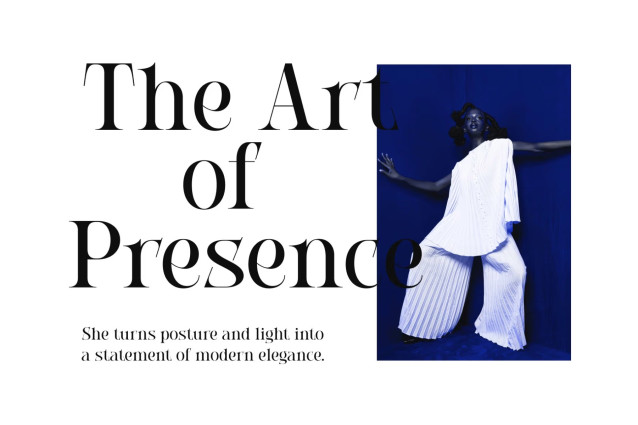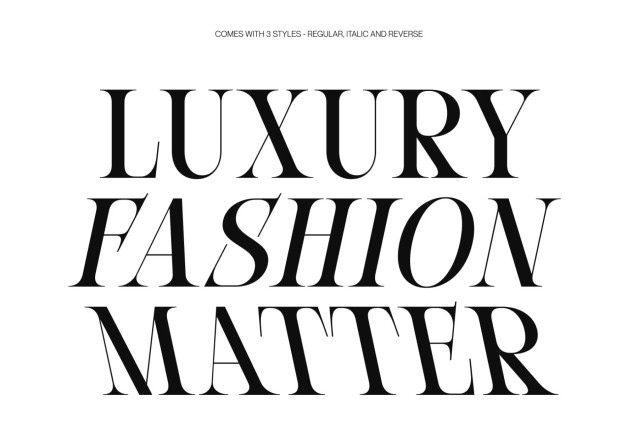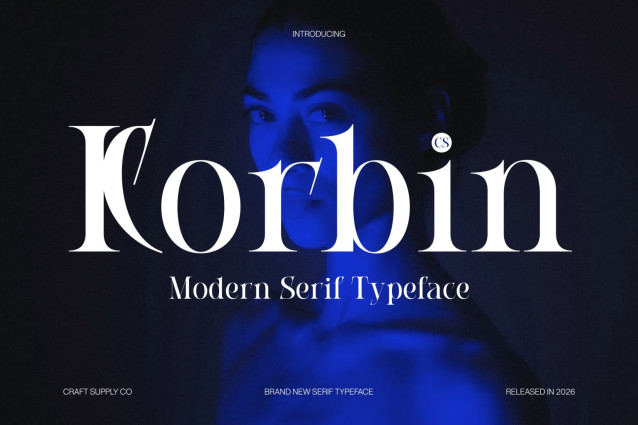
CS Korbin – Modern Serif Font
CS Korbin – Modern Serif Font: Where Dramatic Contrast Meets Editorial Luxury
Dramatic Contrast with Refined Serif Details
This is a modern serif font featuring dramatic contrast, elegant curves, and beautifully refined serif details that convey a timeless sense of luxury and sophistication. Its carefully balanced proportions create graceful letterforms that feel polished, expressive, and effortlessly stylish, making every word stand out with refined beauty.
Editorial Aesthetic with Premium Appeal
Inspired by the elegance of high-end editorial typography, this font blends classic serif craftsmanship with contemporary precision. Its striking contrast and sophisticated structure deliver a clean yet luxurious appearance that enhances both readability and visual impact. The result is typography that feels exclusive, fashionable, and enduring.
Sophisticated Typography for Modern Luxury
Designed for premium visual communication, that creates a distinctive identity that elevates branding and editorial design alike. Its harmonious balance of graceful curves and confident structure communicates prestige, refinement, and professionalism, making it ideal for projects that demand timeless elegance.